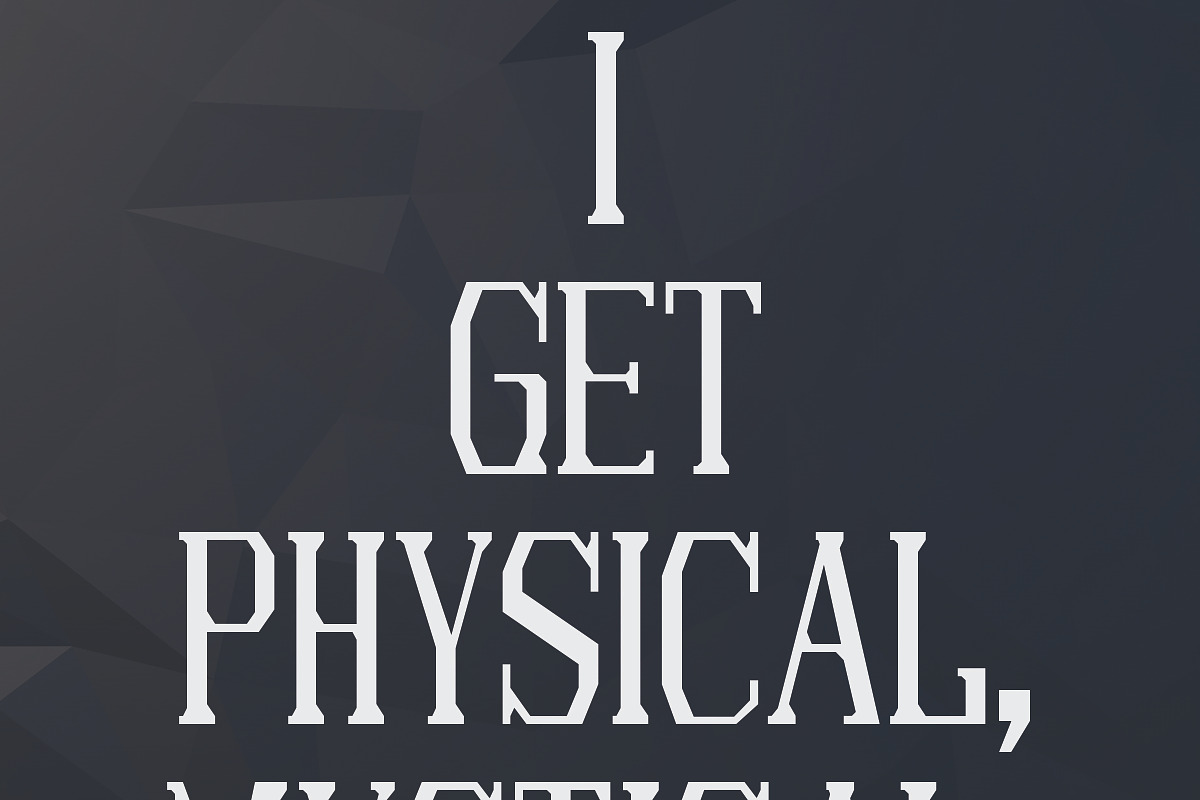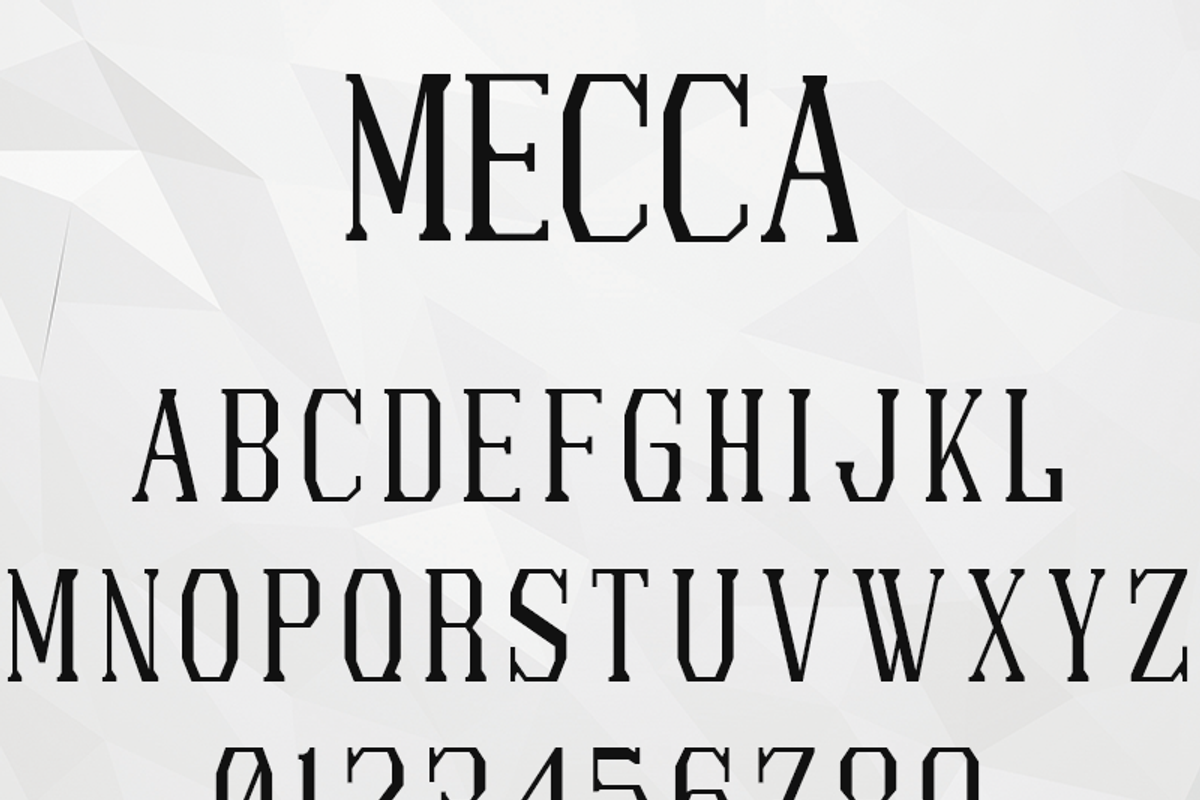
Mecca Typeface
Mecca Typeface by TWLV27 is a font selected for branding, posters, packaging, typography.
Why Mecca Typeface is worth a look
Mecca Typeface by TWLV27 fits naturally into Branding, posters, packaging, typography.